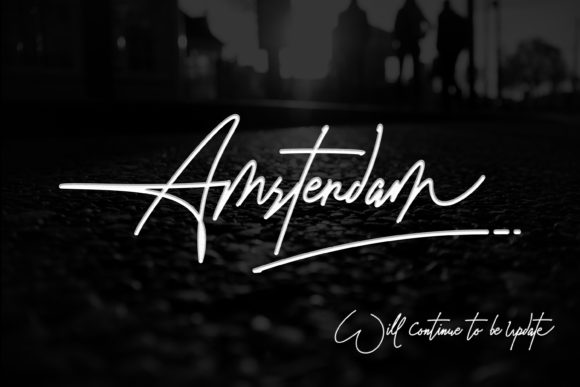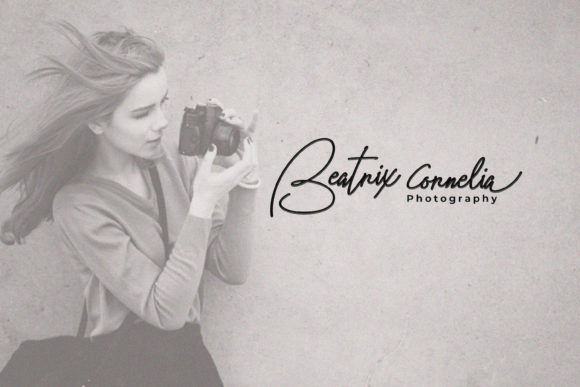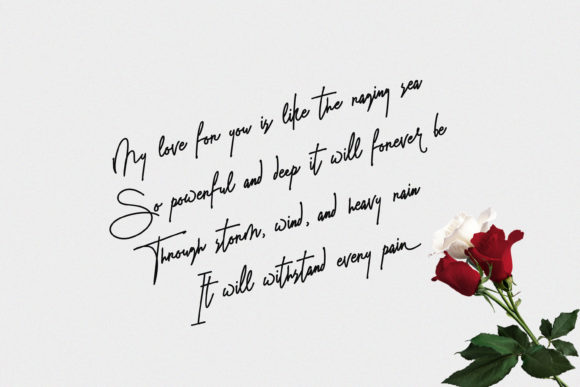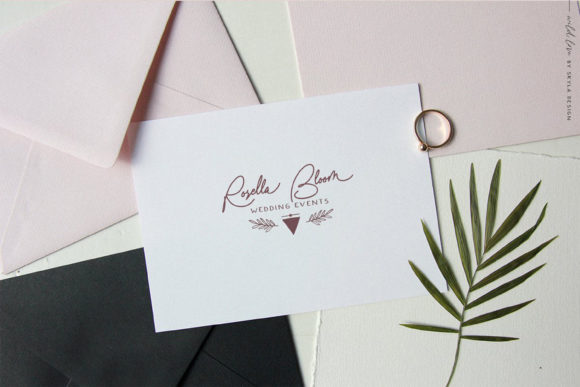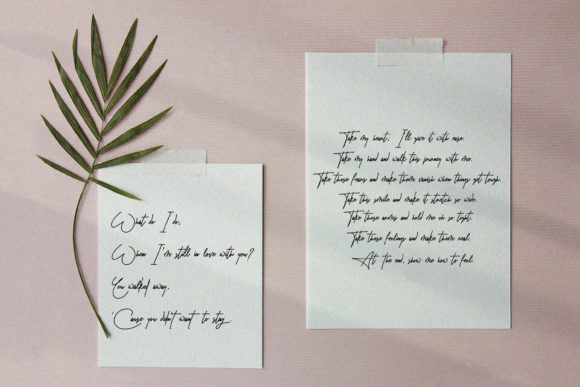
About Amsterdam Font
Amsterdam is a beautiful script font. This font has been carefully designed to recreate natural handwritten text and it features cute swashes. It will elevate a wide range of design projects to the highest level, be it branding, headings, wedding designs, invitations, signatures, logos, labels, and much more!